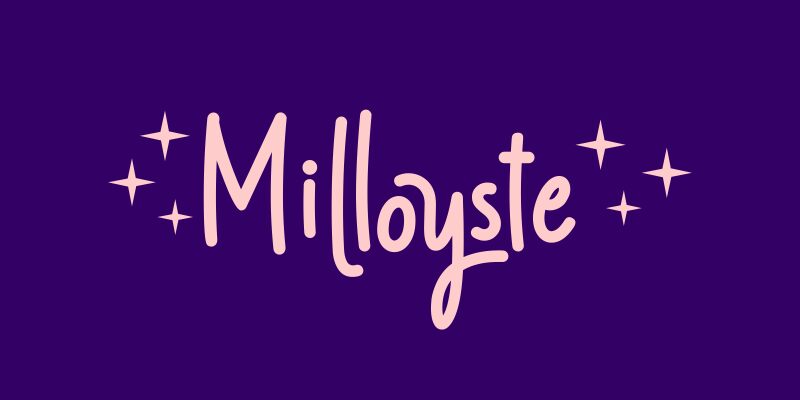
Milloyste
Milloyste is a captivating, handwritten font that exudes a sense of effortless elegance. Designed by Keithzo and Situjuh Nazara, this condensed font boasts a mesmerizing calligraphic style that effortlessly blends the organic flow of handwritten text with a refined, modern sensibility.
The fluid strokes and subtle variations in line thickness create a striking visual rhythm, lending Milloyste a distinct personality that is both sophisticated and approachable. This font's versatility shines across a range of design applications, from editorial layouts and branding to packaging and environmental graphics, where its unique character can elevate and enhance the overall aesthetic.